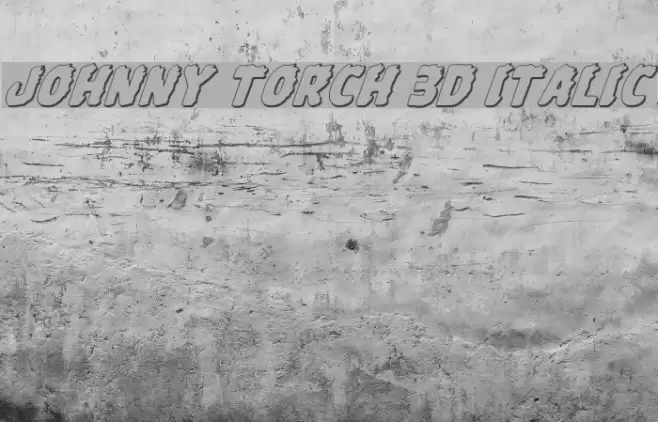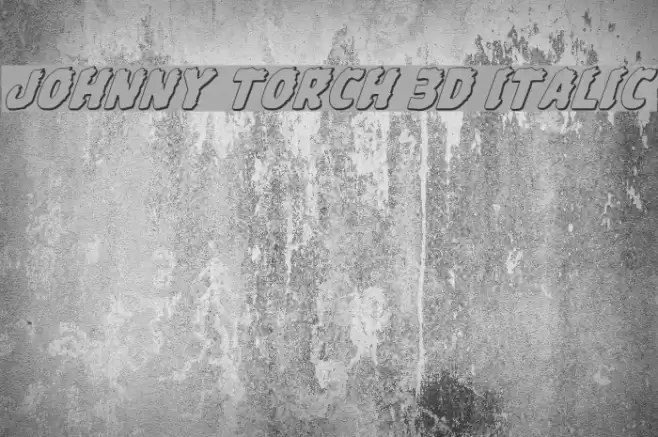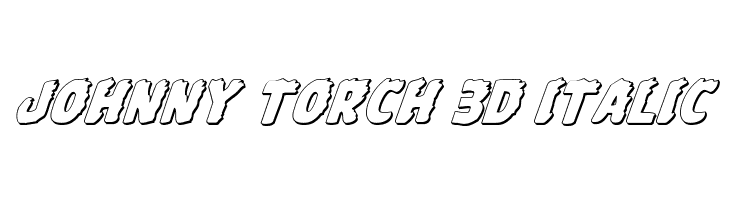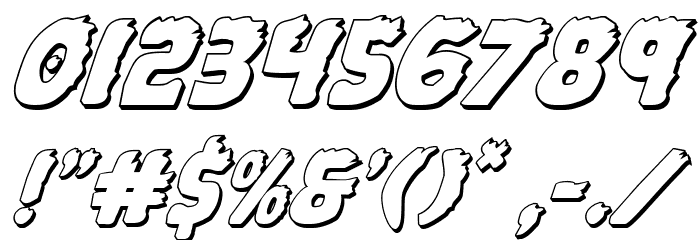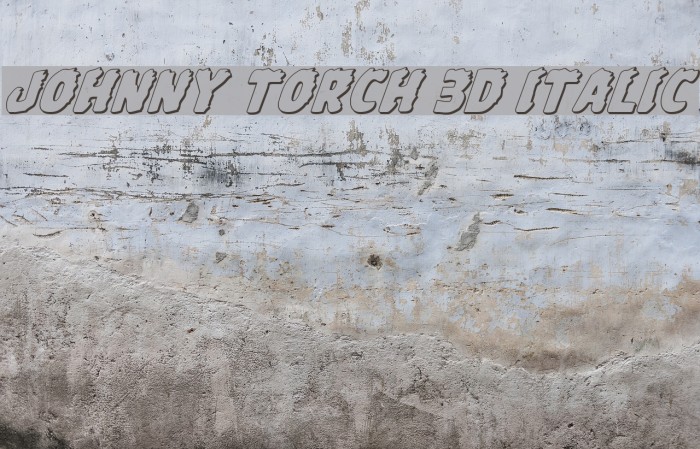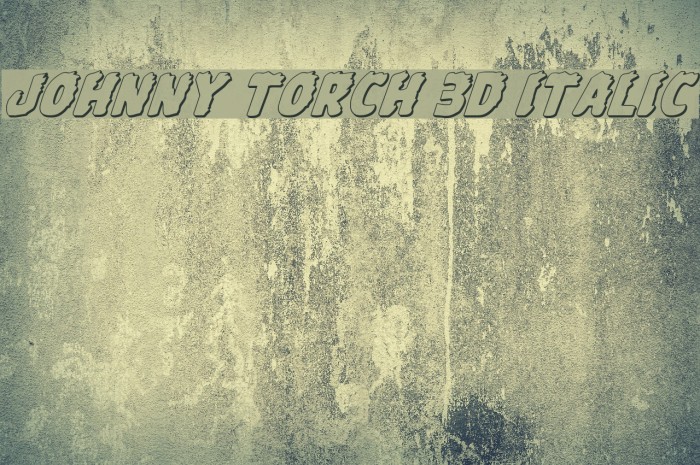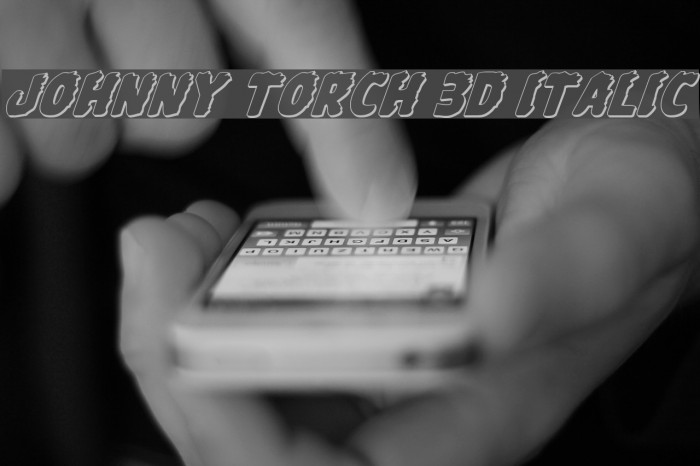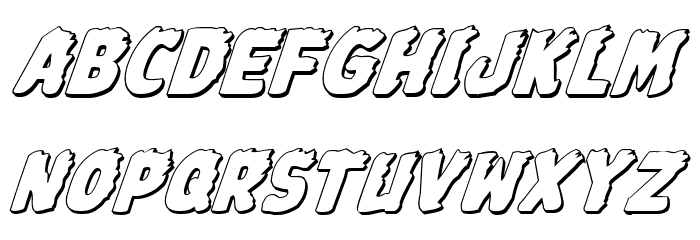
Johnny Torch 3D Italic Font
Johnny Torch 3D Italic Description
This font features a bold, dynamic 3D effect with a distinct italic slant, giving it a sense of movement and energy. The characters are outlined, creating a layered appearance that enhances the three-dimensional look. Each letter and number is robust and well-defined, making it suitable for attention-grabbing designs. The style is playful yet assertive, with a slightly comic or cartoonish feel. The special characters maintain the same bold and dynamic style, ensuring consistency across all glyphs.
A bold, 3D italic font with a playful, dynamic style from Fancy fonts.
- Proposed Projects: Ideal for comic book titles, playful posters, video game graphics, or any project requiring a bold, energetic typeface.